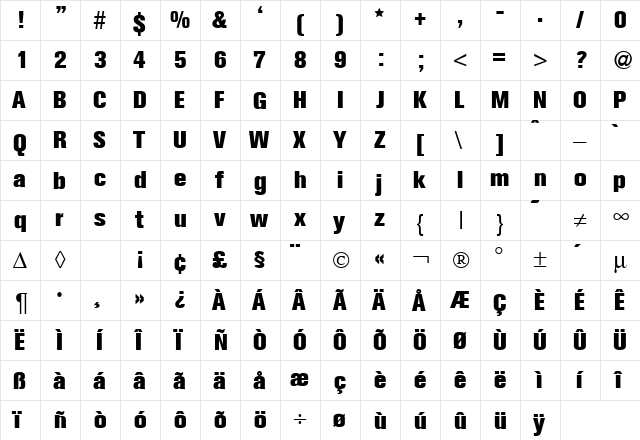
AkzentExtrabold Regular
Design Context for AkzentExtrabold Typeface
AkzentExtrabold takes a measured approach to typography — its balanced proportions and neutral character make it a reliable workhorse for both digital and print work. The heavy weight commands attention and anchors typographic hierarchies.
Pro Tip: Pair AkzentExtrabold with a font of contrasting weight or personality to build a more expressive typographic hierarchy.